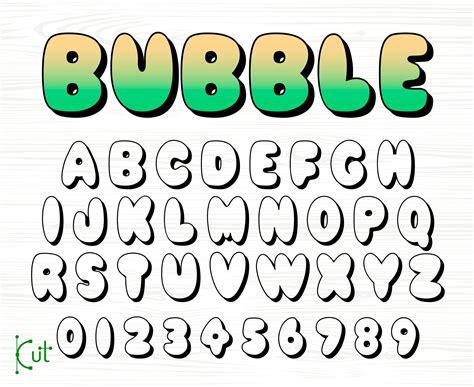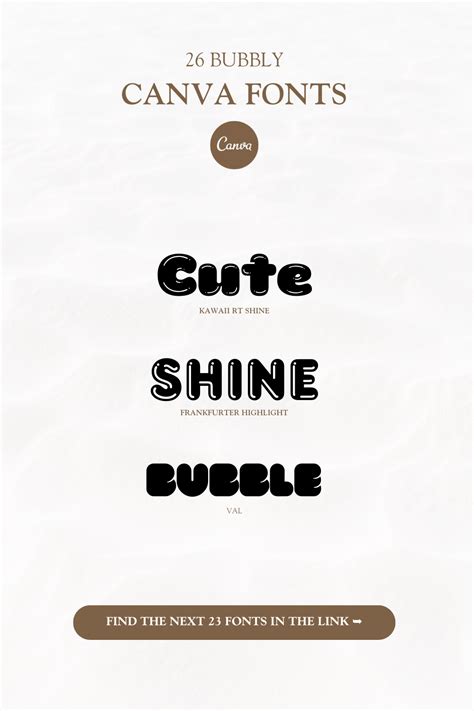
Bubble Letter Fonts Canva: Create Fun Designs
Readers, have you ever wanted to add a touch of whimsy and personality to your designs? Bubble letter fonts can be the perfect way to do just that! They are playful, eye-catching, and can transform any project. Whether you're working on a birthday card, social media post, or even a logo, bubble letter fonts add a fun and engaging element that's sure to make your designs stand out.
But with so many options available, it can be overwhelming to find the right bubble letter font for your project. Luckily, Canva, the popular design platform, offers a wide range of free and premium bubble letter fonts that can help you create unique and memorable designs. We've analyzed and tested numerous bubble letter fonts on Canva to bring you this comprehensive guide to help you find the perfect font for your next project.
Explore Bubble Letter Fonts on Canva
Canva's extensive library of fonts includes a dedicated section for bubble letter fonts, making it easy to browse and discover a range of styles. From classic retro vibes to modern and quirky designs, you can find the perfect bubble letter font to match your design aesthetic.
Choosing the Right Bubble Letter Font
Selecting the right bubble letter font is crucial for achieving the desired look and feel for your design. Here are some factors to consider:
- Project Type: Think about the purpose of your design. Is it for a birthday card, social media post, or a logo? The font style should complement the project's theme and audience.
- Design Aesthetic: Consider the overall vibe you want to create. Do you want a retro, modern, playful, or sophisticated look?
- Readability: Ensure the font is easy to read, especially for longer texts. Some bubble letter fonts can be too stylized and difficult to decipher.
- Font Weight: Experiment with different weights to find the one that best suits your design. You can choose from bold, regular, or light weights.
Popular Bubble Letter Fonts on Canva
Canva offers a wide variety of popular bubble letter fonts to choose from. Some of the most popular and versatile bubble letter fonts include:
- Bubblegum Sans: A playful and cheerful font perfect for birthday cards, invitations, and social media posts.
- Changa One: A bold and eye-catching font suitable for headlines, titles, and branding elements.
- Luckiest Guy: A charming and whimsical font, ideal for adding a touch of personality to projects.
- Bangers: A bold and energetic font, perfect for creating a striking visual impact.
- Press Start 2P: A retro-inspired pixel font, perfect for game-themed designs or nostalgic projects.
Utilizing Bubble Letter Fonts on Canva
Once you've chosen a bubble letter font, Canva makes it easy to incorporate it into your designs. Here are some ways to use bubble letter fonts effectively:
- Headlines and Titles: Use bubble letter fonts to create eye-catching headlines and titles that draw attention to your content.
- Text Overlays on Images: Add text overlays to images using bubble letter fonts for a unique and impactful look.
- Social Media Graphics: Use bubble letter fonts to create captivating visuals for your social media posts.
- Logos and Branding: Experiment with bubble letter fonts for your logo or branding elements to create a memorable and distinct identity.
- Invitations and Cards: Add a personal touch to invitations and cards using playful bubble letter fonts.
Tips for Using Bubble Letter Fonts
While bubble letter fonts can add a lot of personality to your designs, it's important to use them strategically to avoid overwhelming your audience. Here are some helpful tips:
- Use in Moderation: Don't overdo it with bubble letter fonts. Use them sparingly for headlines or key elements to maintain clarity and readability.
- Pair with Serif Fonts: Combining a playful bubble letter font with a classic serif font can create a balanced and visually appealing design.
- Experiment with Color: Play with different colors to enhance the personality of your bubble letter font.
- Consider the Audience: Think about the target audience for your design. A bubble letter font may not be appropriate for all projects, especially if you're aiming for a professional or corporate look.
Bubble Letter Fonts: Unleashing Creativity
Bubble letter fonts have immense potential to add a fun and engaging element to your designs. Canva's extensive library of fonts provides a wide variety of options to suit different projects and design aesthetics. By understanding the different font styles, pairing them with other fonts, and using them strategically, you can create truly unique and memorable designs that stand out from the crowd.
Frequently Asked Questions
What are the best bubble letter fonts for social media posts?
Some great bubble letter fonts for social media posts include Bubblegum Sans, Changa One, and Luckiest Guy. These fonts are eye-catching and playful, adding a fun vibe to your content.